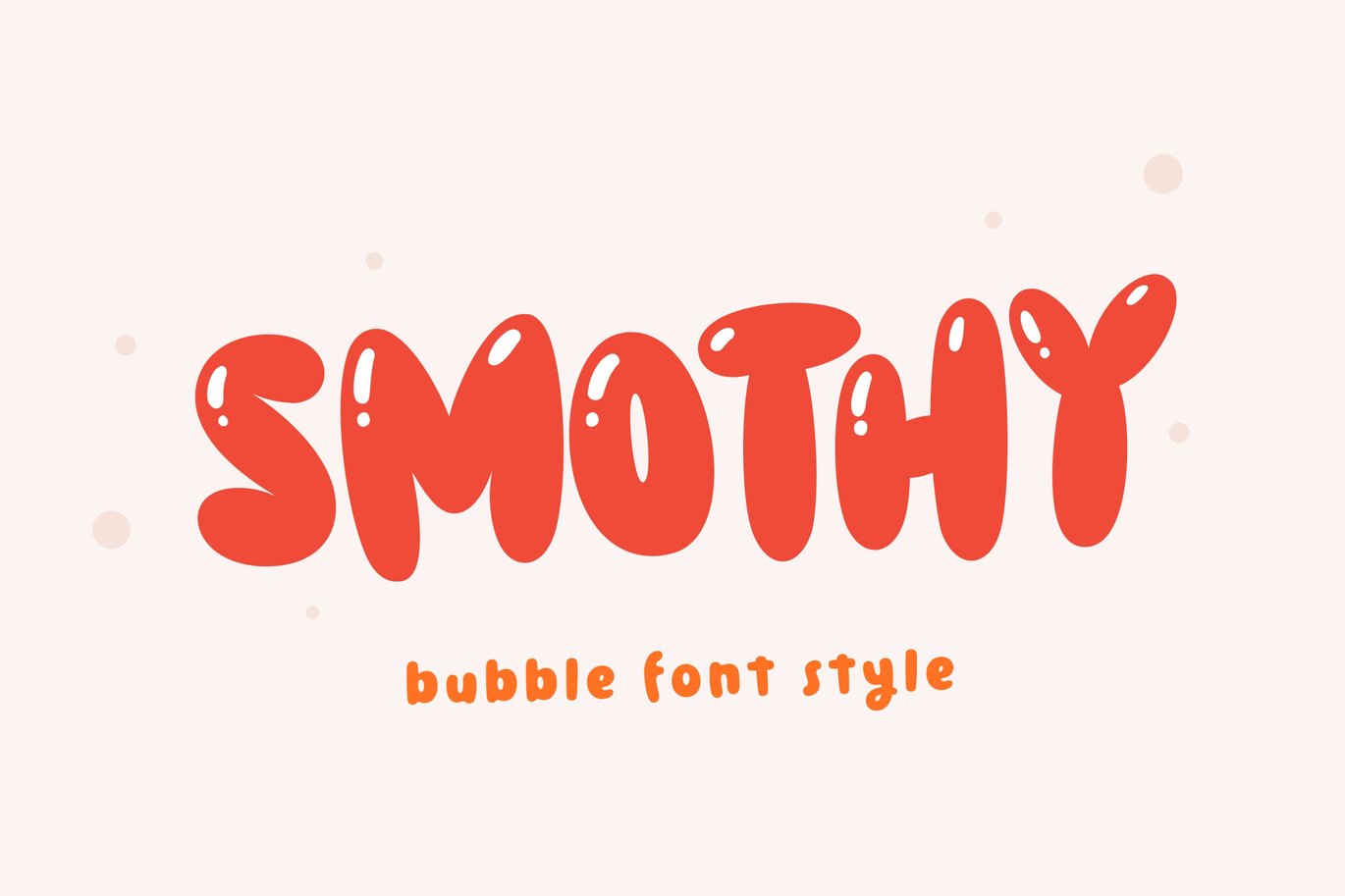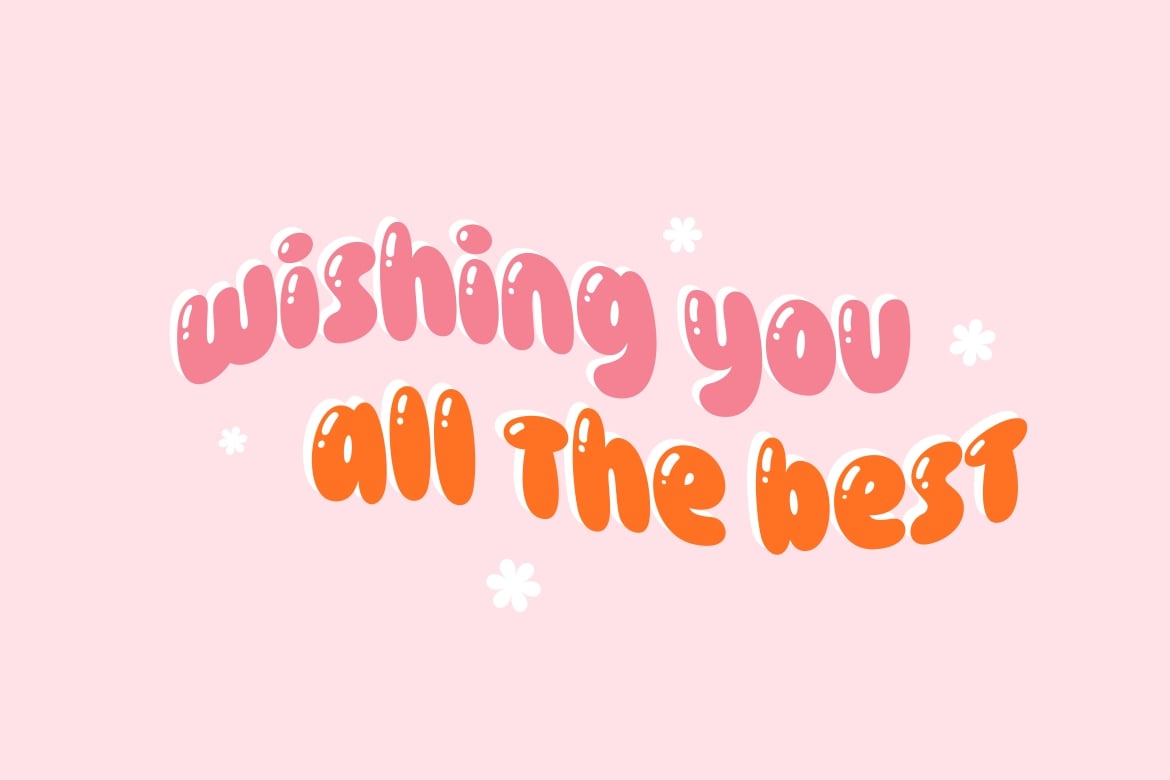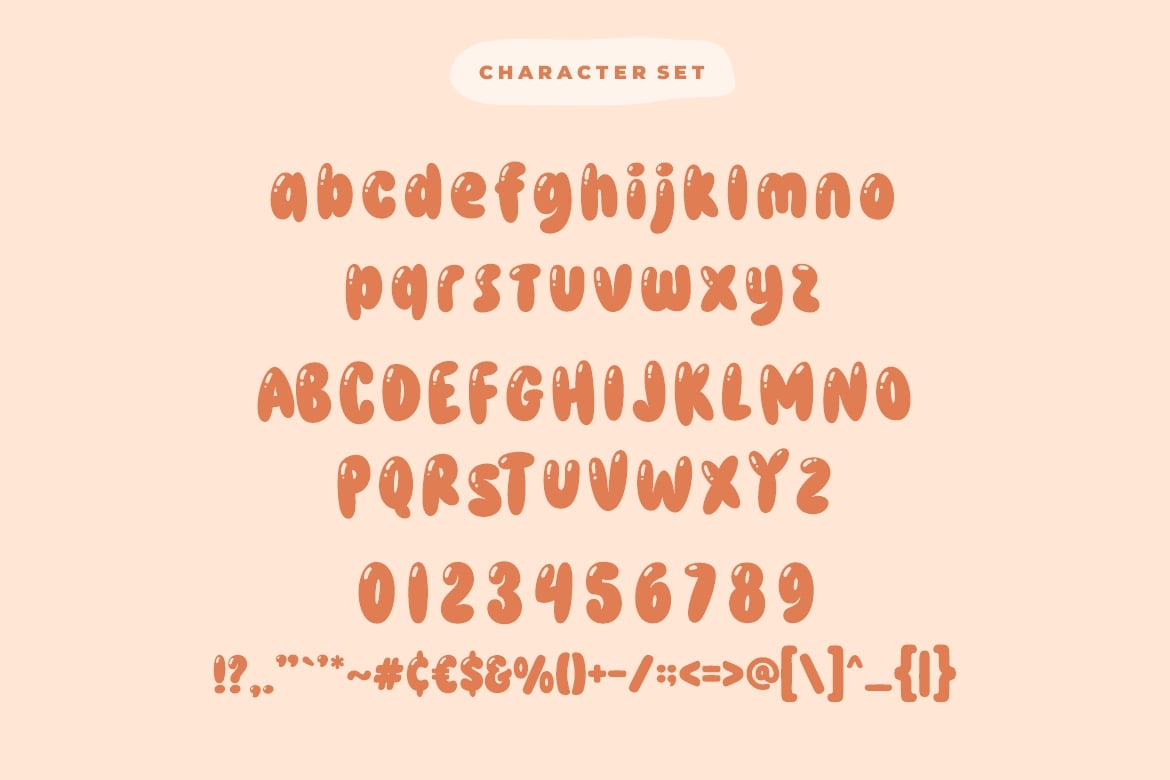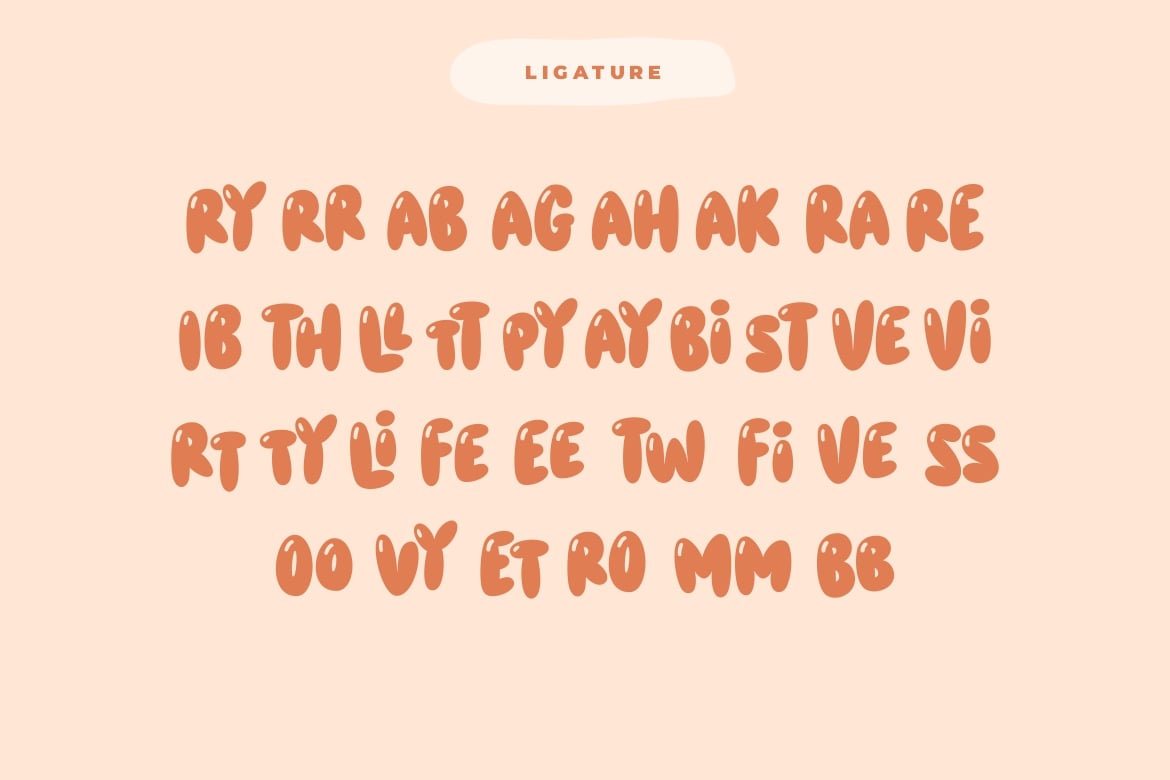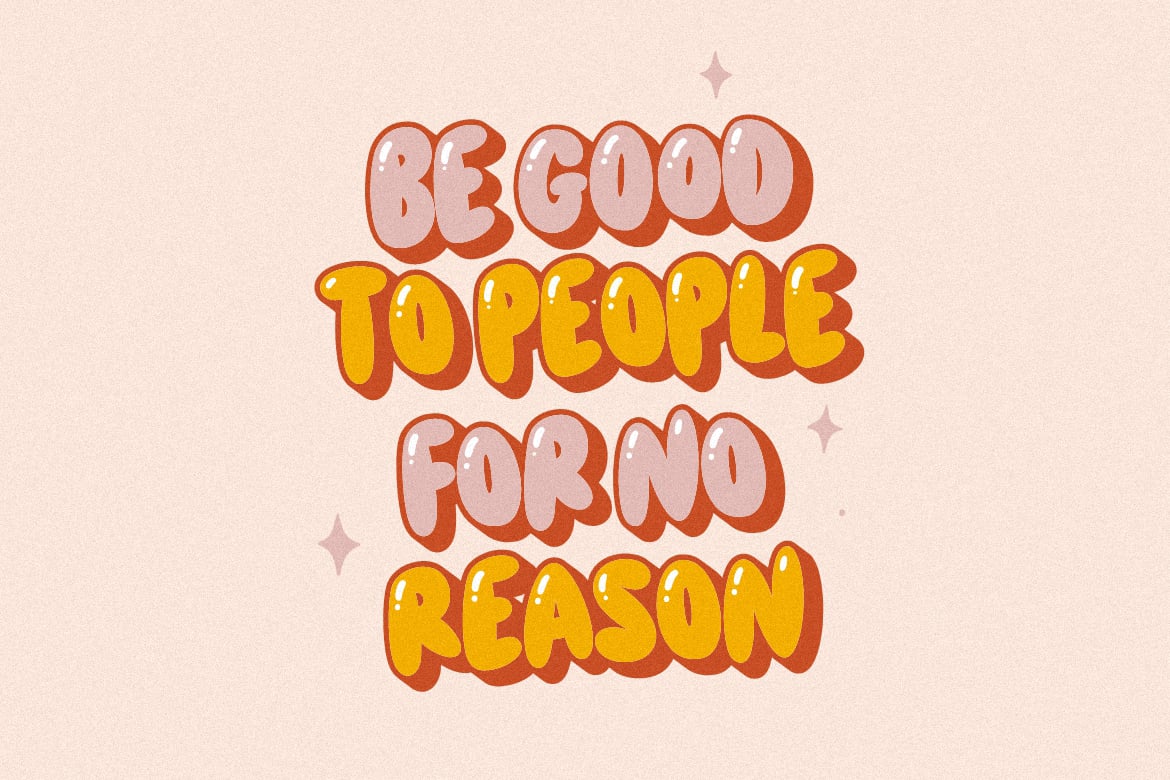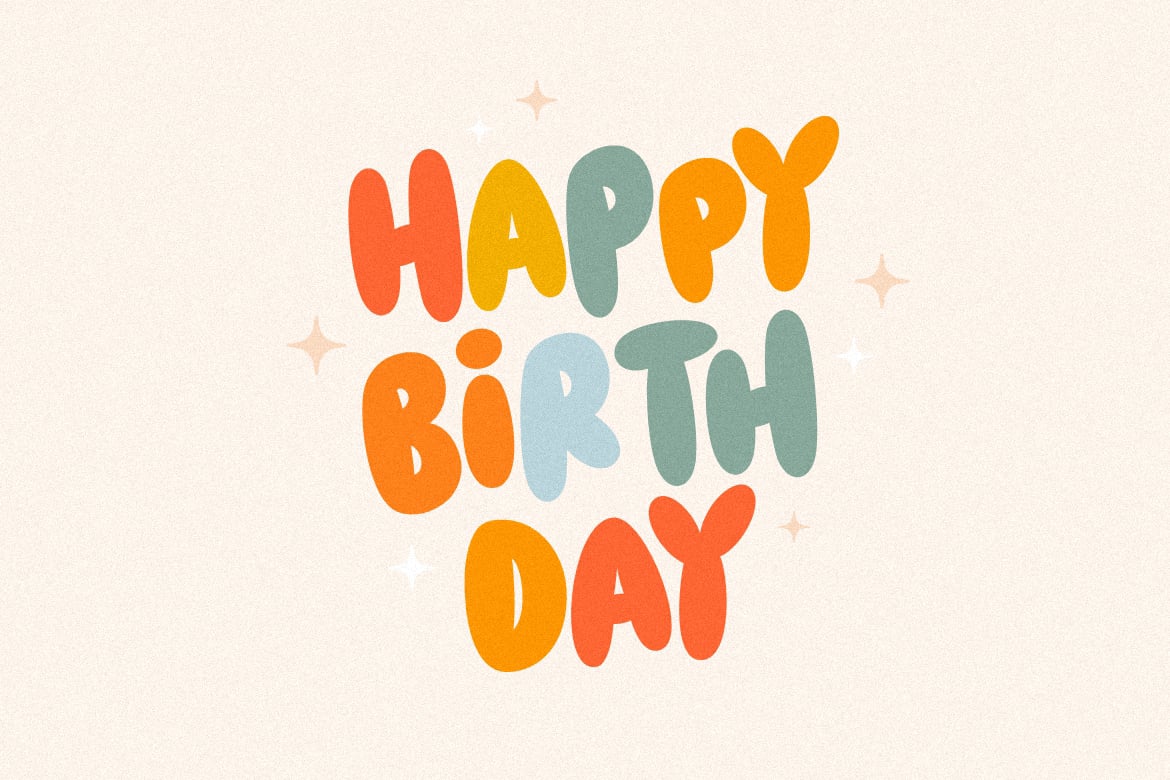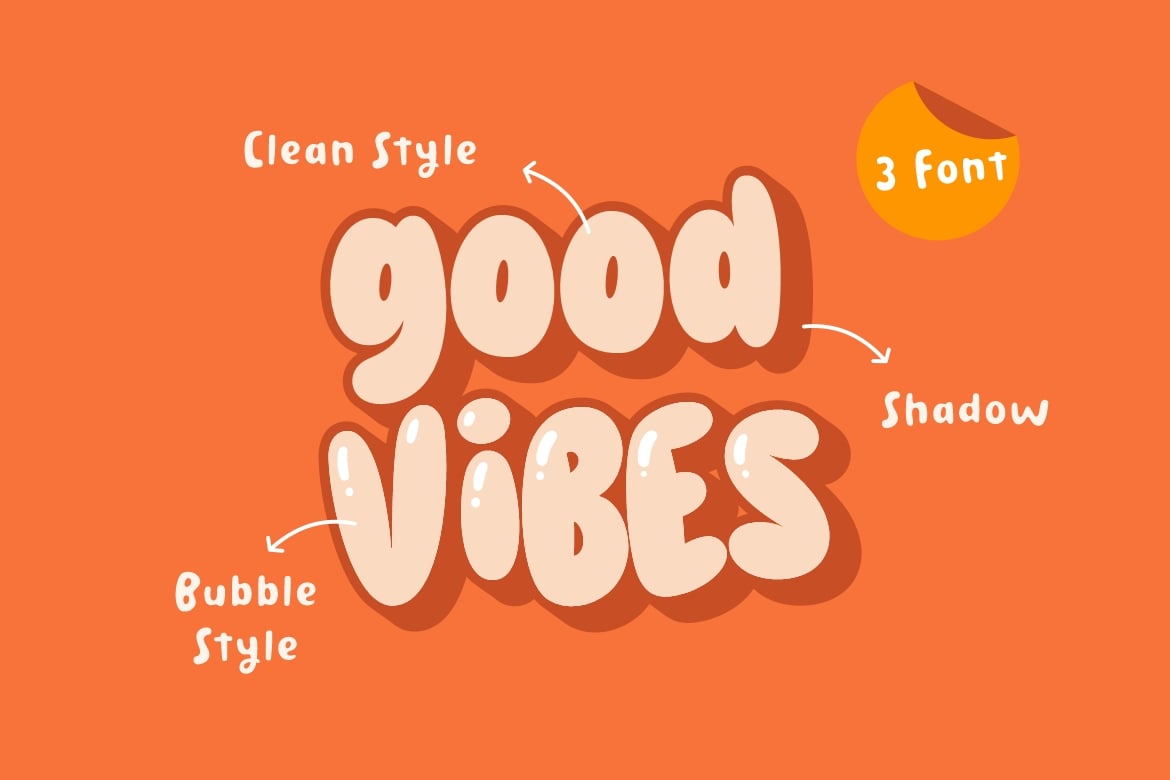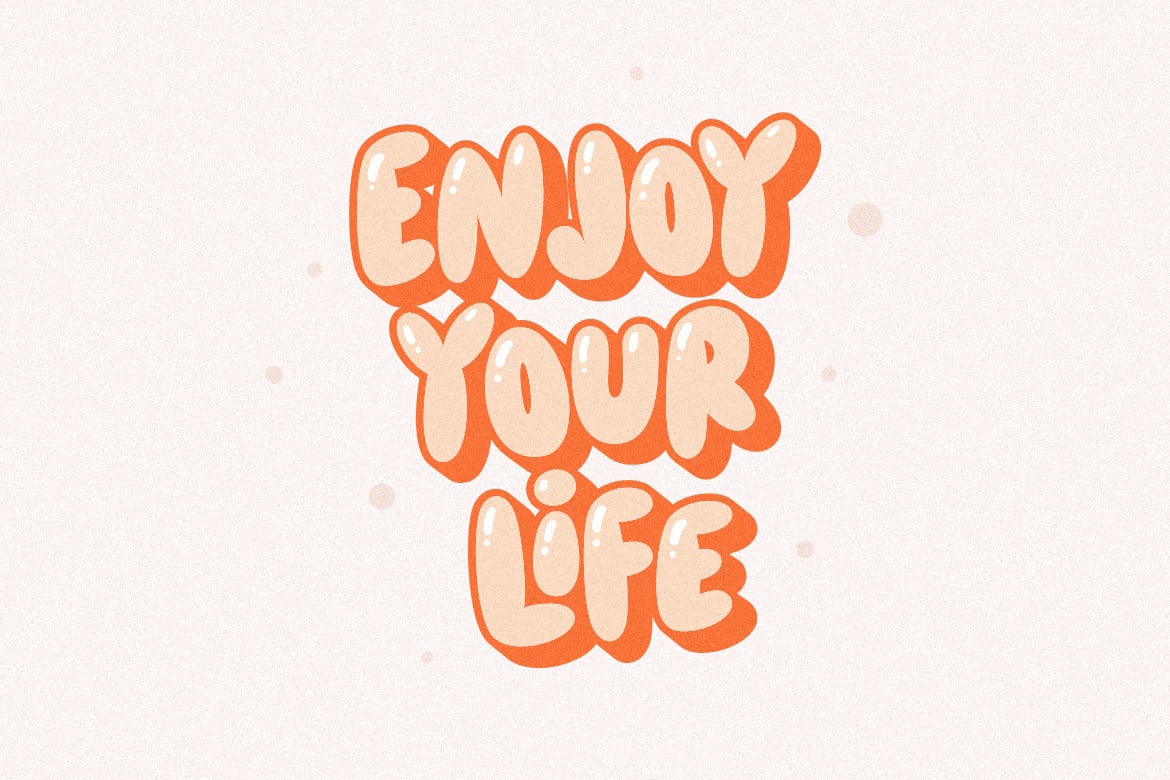
Smothy Bubble Font
Smothy is a modern, bold, clean and rounded font style. You will get 3 versions of this font, a clean, shadow and a decoration version. Equipped with all complete characters ranging from uppercase letters, lowercase letters, numbers, punctuation marks and multi-lingual support, this font is ready to be used in any project. Use this Smothy font to add that special modern bubbly touch to any design idea you can think of!.